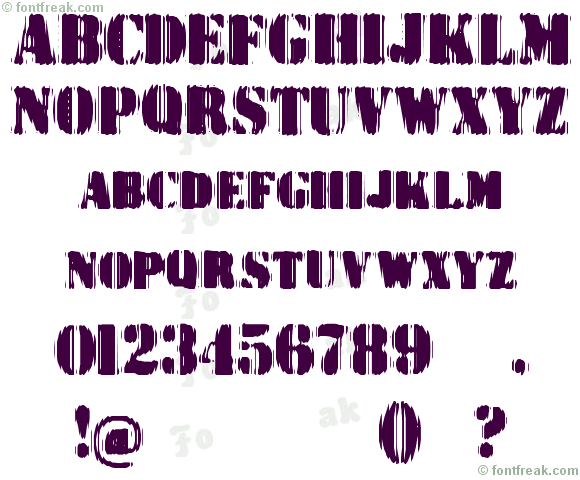
Dr.Enoksen
About Dr. Enoksen
Introducing the Dr. Enoksen font by Mr. Fisk, a captivating display typeface that effortlessly merges modern aesthetics with a touch of whimsy. This font falls within the decorative category, characterized by its playful yet sophisticated design. The Dr. Enoksen font features a unique combination of rounded and angular strokes, which create an engaging visual contrast. The varying stroke weights lend a dynamic quality, while the generous spacing between letters enhances readability and adds a sense of airiness to any text.
The Dr. Enoksen font is perfect for a variety of creative applications. Its distinctive style makes it an excellent choice for wedding invitations, where it can infuse a sense of elegance and joy into the celebration. Additionally, its eye-catching design is ideal for movie posters, helping to convey the tone and theme of the film. Restaurant menus can also benefit from this font, adding a touch of sophistication that draws patrons in. For graphic designers and content creators, Dr. Enoksen offers a refreshing option for branding projects, social media graphics, and promotional materials that require a standout typeface.
What makes the Dr. Enoksen font truly special is its ability to combine fun with functionality. The unique visual characteristics create a memorable and engaging typography choice that stands out in a crowded digital landscape. With the Dr. Enoksen font free download, you can easily integrate this delightful typeface into your next design project and leave a lasting impact.